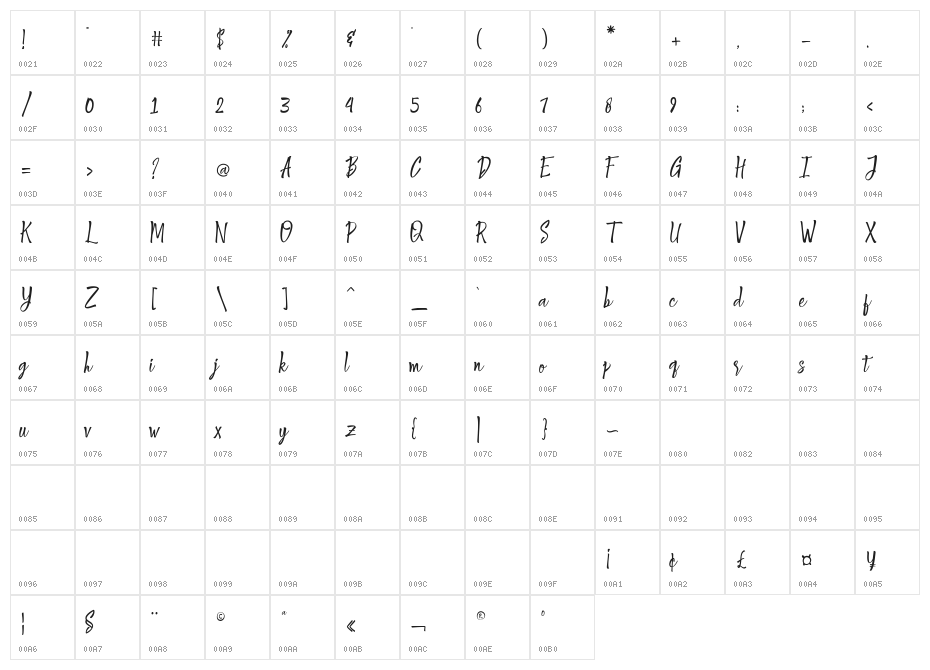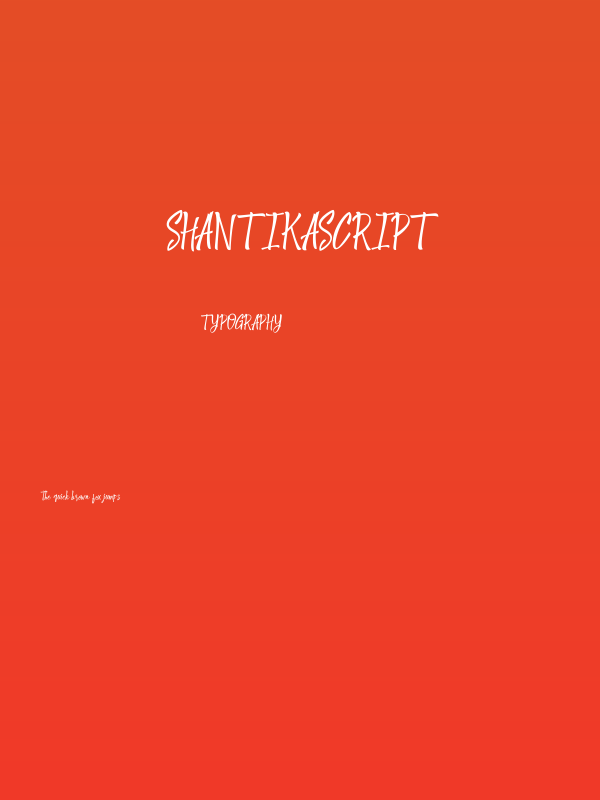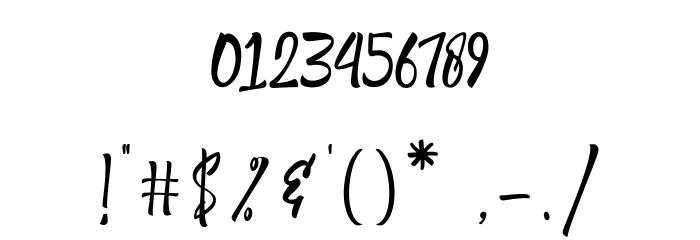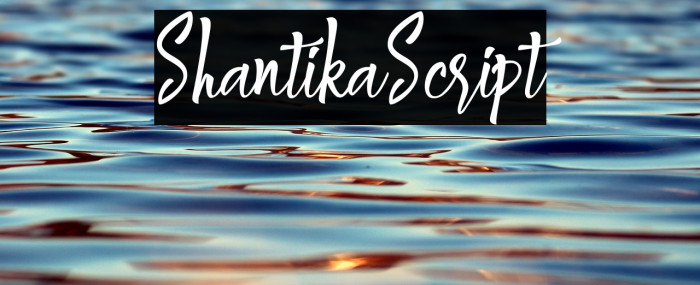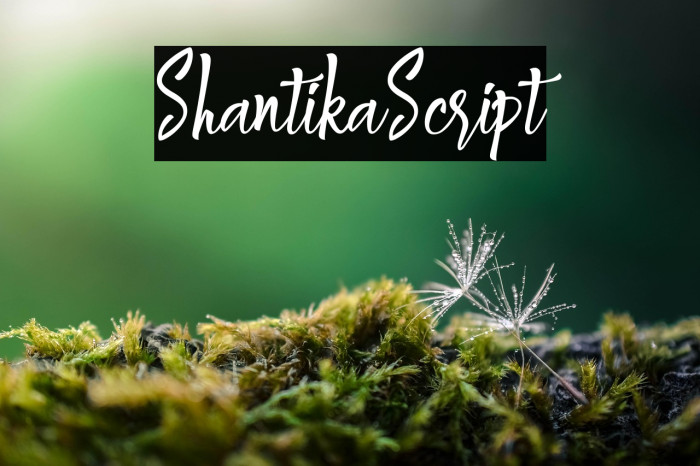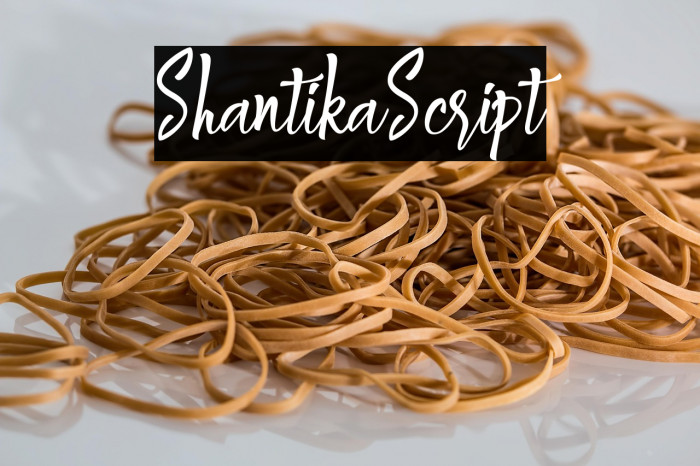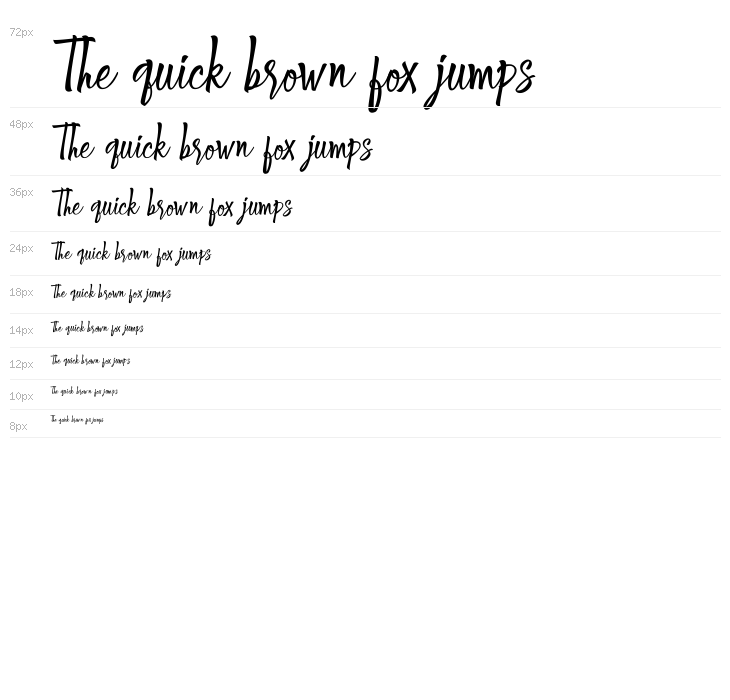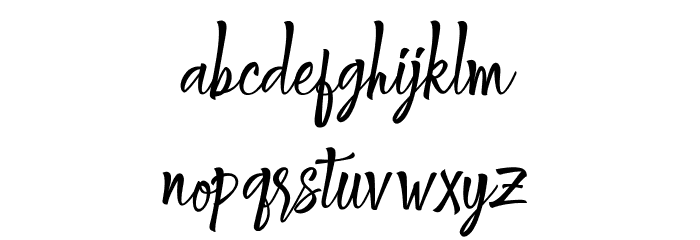
ShantikaScript Font
ShantikaScript Description
This font exudes a lively and dynamic script style, characterized by its fluid and cursive strokes. The uppercase letters are bold and slightly slanted, giving a sense of movement and elegance. The lowercase letters maintain a consistent flow, with some letters featuring distinctive loops and swashes that enhance its handwritten appeal. The numerals are clear and legible, complementing the overall style. Special characters are thoughtfully designed to match the script's aesthetic, making it versatile for various design needs.
| Use Case | Logos, Invitations, Headlines |
| Proposed Projects | Ideal for wedding invitations, greeting cards, branding projects, and social media graphics. |